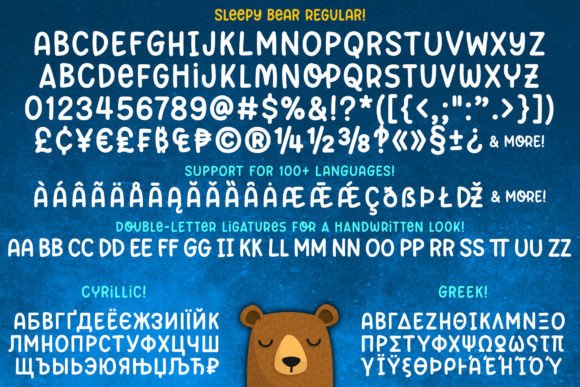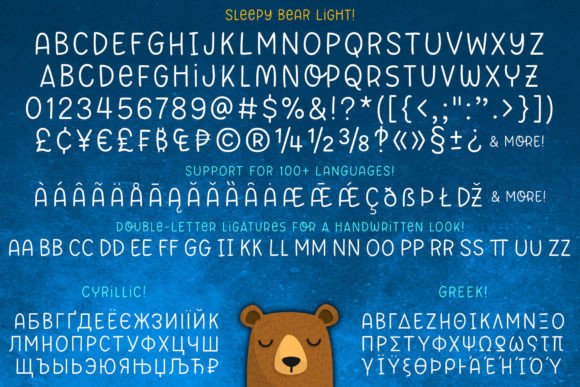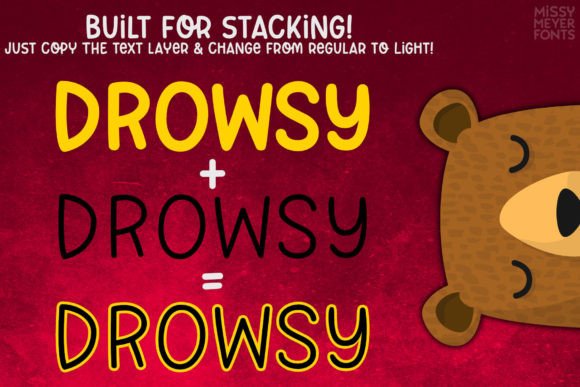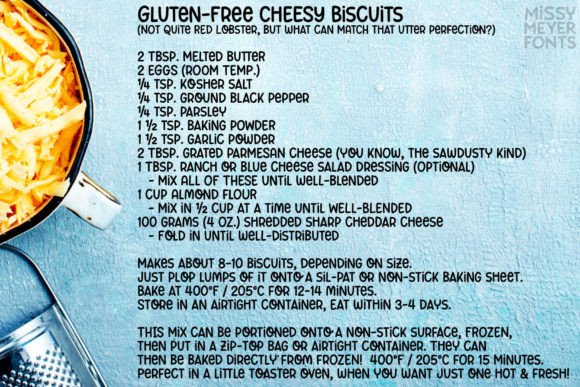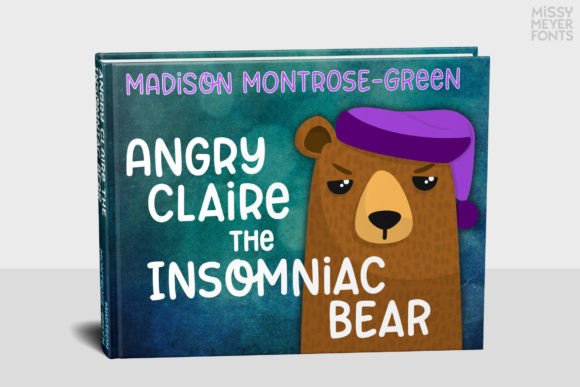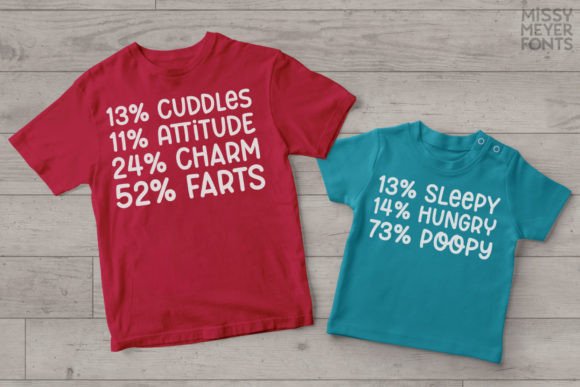
Introduction to Sleepy Bear Font Font
Fonts play a crucial role in design, and the Sleepy Bear Font font is a typeface that brings both character and versatility to any project. Whether you’re working on a branding project, a website, or a print design, the Sleepy Bear Font font offers a unique style that can elevate your work.
Iβve been learning to read Cyrillic and Greek letters lately, mainly because Iβve been playing the game GeoGuessr.
Key Features of Sleepy Bear Font Font
Why Choose Sleepy Bear Font Font?
The Sleepy Bear Font font is more than just a typeface β it’s a design tool that helps you communicate your message with style and clarity. Its unique character set and versatile design make it suitable for a wide range of applications, from elegant invitations to bold headlines.
With its carefully crafted letterforms and balanced proportions, the Sleepy Bear Font font ensures readability and visual appeal across all mediums.
What makes Sleepy Bear Font font special?
The Sleepy Bear Font font stands out with its unique design, exceptional readability, and versatility across various design applications.